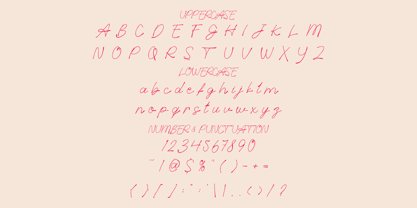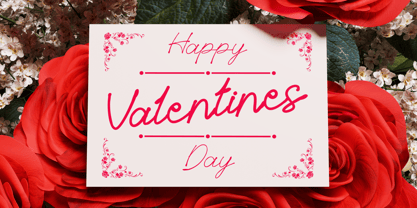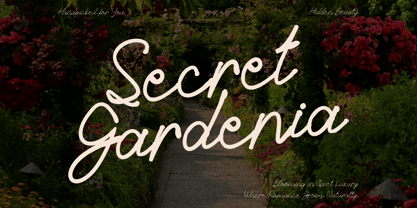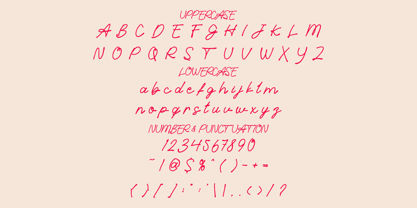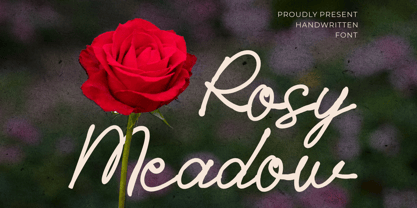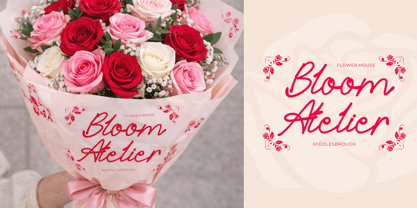
Rosy Meadow
par Shanaf
La famille de polices Rosy Meadow a été conçue par Yesie Erma Yunita et publiée par Shanaf. Rosy Meadow contient 2 styles et options de package familial. En savoir plus sur cette famille
Rosy Meadow Handwritten Font flows with smooth monoline strokes and graceful curves. The letters feel light, airy, and naturally connected. Long swashes and rounded turns create a warm handwritten rhythm. Medium height characters keep words elegant and easy to read. Loose spacing gives each phrase a calm and refined presence. This script style blends modern romance with personal charm. It suits wedding logos, floral boutiques, beauty labels, and gift branding. Use it for invitation titles, greeting cards, quotes, packaging tags, posters, and magazine covers. The handwriting look feels sincere, soft, and expressive. It adds emotion to names, slogans, and signature style branding. Designed for brands that need tenderness and memorable style, this font builds instant connection. It works well for flower shops, wedding planners, event studios, candle brands, skincare labels, and handmade gift stores. Thin flowing lines help logos feel graceful without losing clarity. Use it for social media headers, product stickers, boutique signage, book covers, and romantic film titles. Rosy Meadow Handwritten Font also pairs nicely with serif or sans body text. That contrast creates polished layouts for advertising and editorial work. Choose it when your project needs elegance, affection, and a natural handwritten touch.
Concepteurs: Yesie Erma Yunita
Fonderie: Shanaf